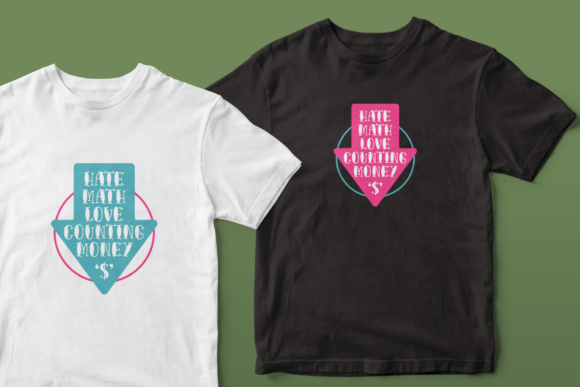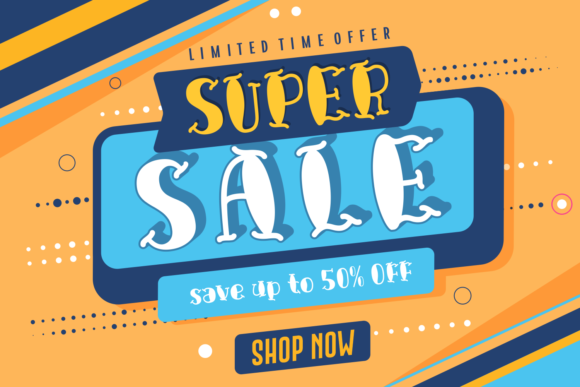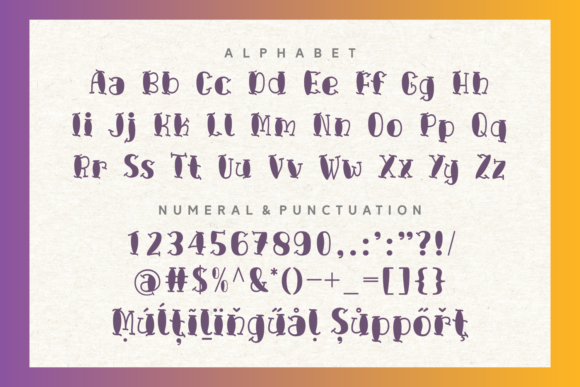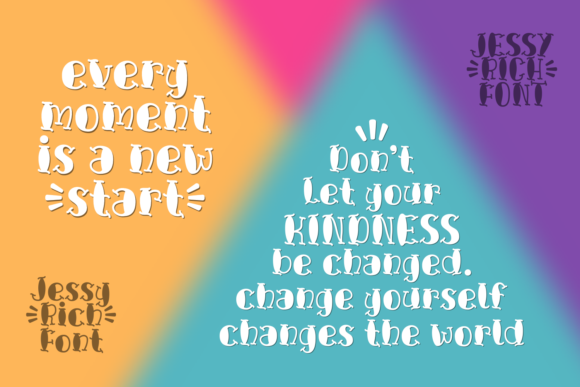
Introduction to Jessy Rich Font
Jessy Rich is a cool, quirky and fun display font.
Whether youโ€™re using it for crafts, digital design, presentations, or making greeting cards, this font has the potential to become your favorite go-to font, no matter the occasion .
Key Features of Jessy Rich Font
Why Choose Jessy Rich Font?
Jessy Rich Font offers exceptional quality and versatility, making it a valuable addition to your design toolkit. Whether you’re creating for personal projects or commercial use, Jessy Rich Font delivers professional results.